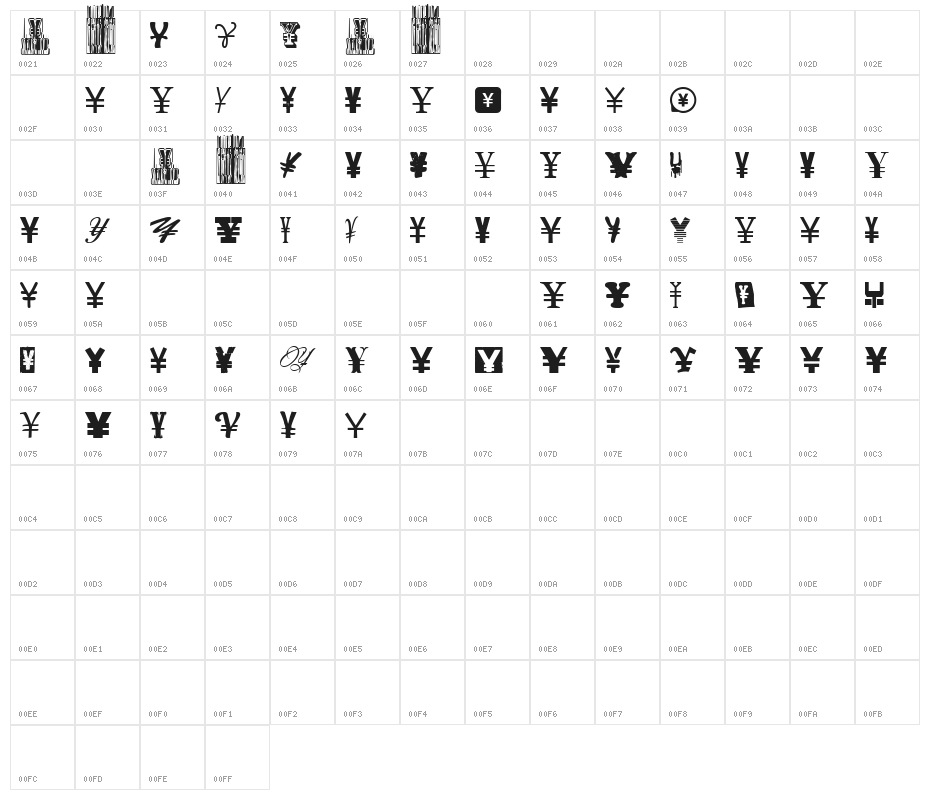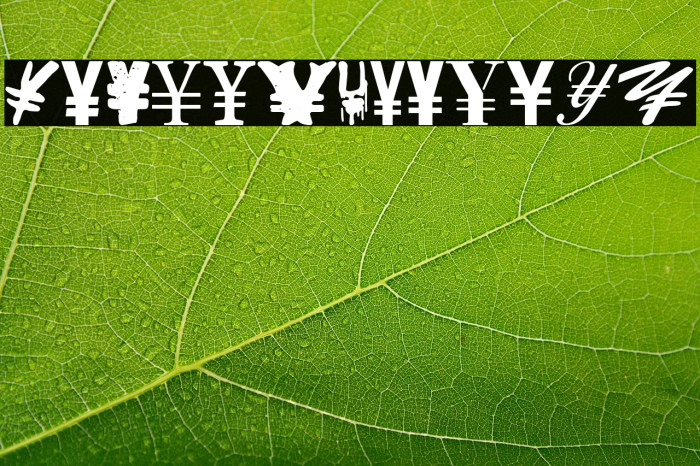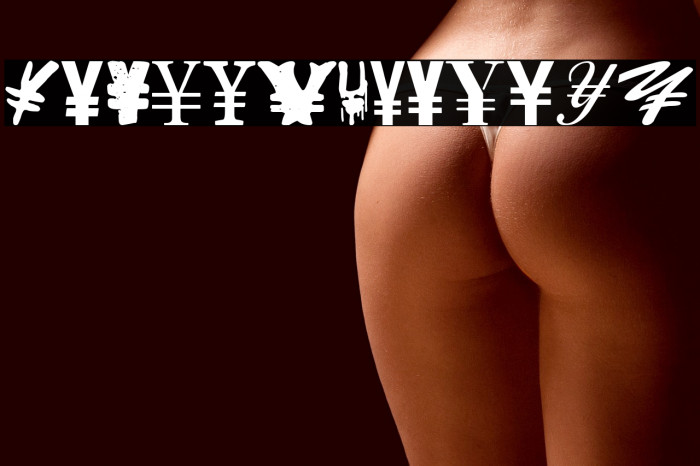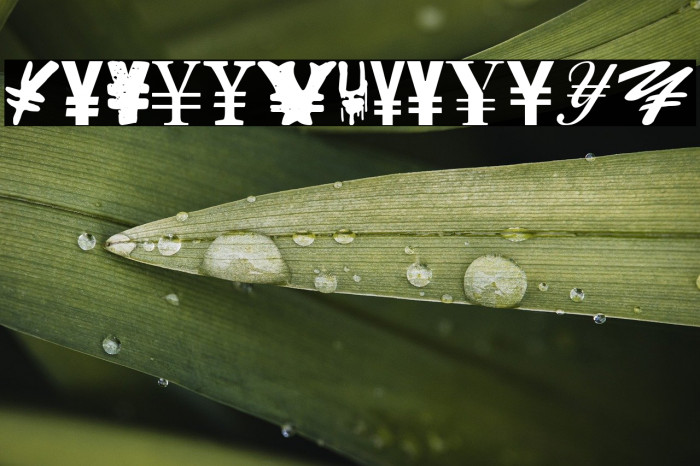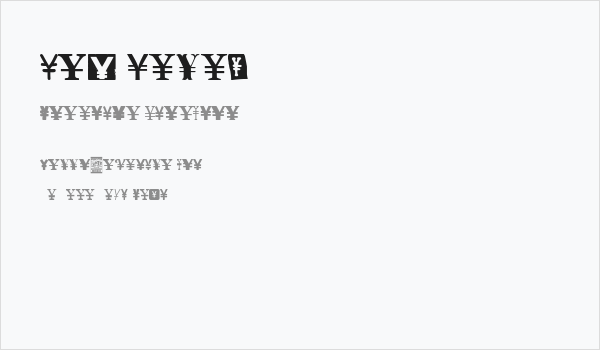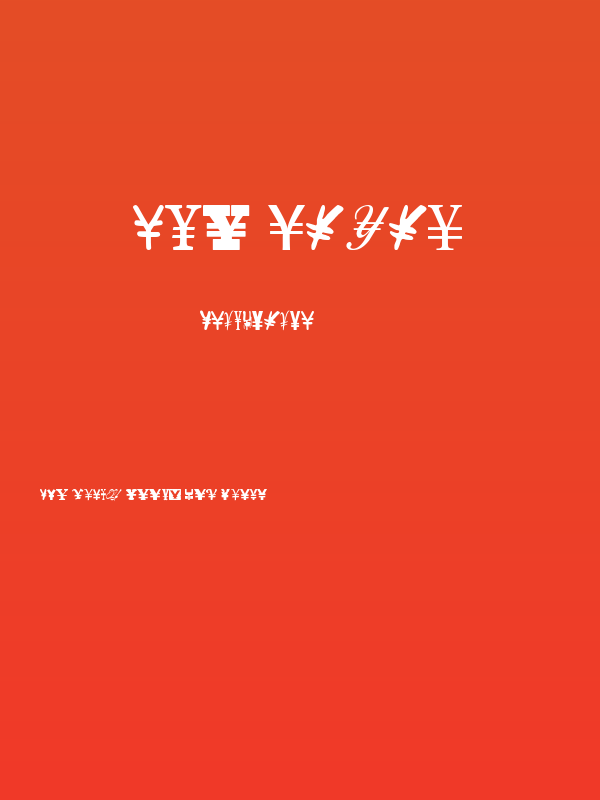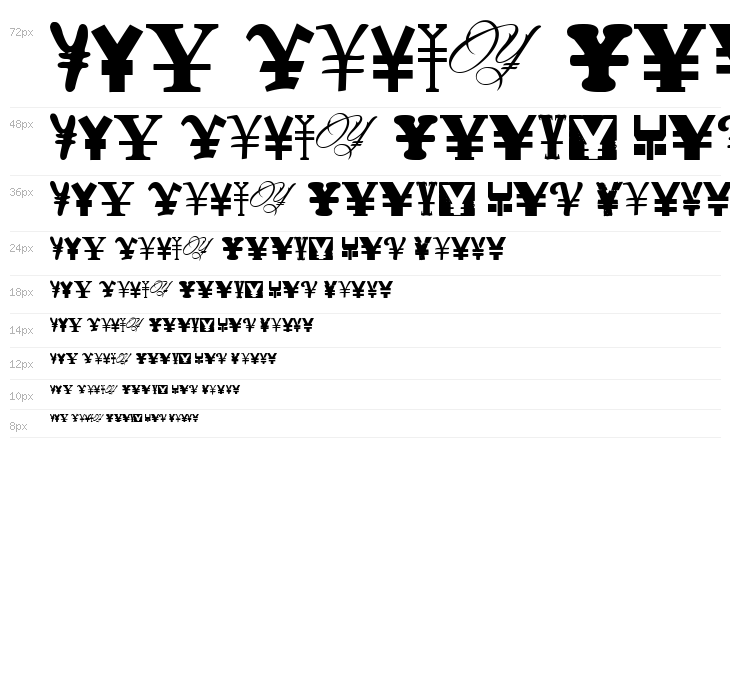
Yen Salad Font
Yen Salad Description
This font is a highly creative and decorative typeface that incorporates the Yen currency symbol into various artistic designs. Each character is a unique interpretation of the Yen symbol, featuring diverse styles such as grunge, stencil, and abstract forms. The font is bold and eye-catching, making it ideal for projects that require a strong visual impact. The characters are densely packed, with some variations including additional graphic elements like stripes and textures. This font is not suitable for body text but excels in decorative applications.